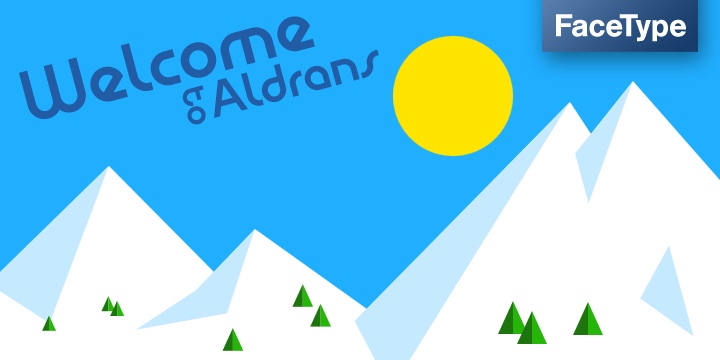
Aldrans Font
This versatile typeface is perfect for branding projects, logo design, poster creation, magazine headlines, book covers, packaging design, social media graphics, and web design elements.
What makes this font exciting is its modern geometric structure combined with elegant curves that create a perfect balance between professionalism and creativity. The clean lines and sophisticated letterforms make it stand out in any design project, while its excellent readability ensures your message gets across effectively.
The Aldrans Font family includes multiple weights ranging from light to bold, along with italic variations, giving designers complete flexibility for hierarchical typography and diverse design applications.
Aldrans Font Free Download offers designers an exceptional opportunity to enhance their creative projects with this contemporary typeface. Whether you're working on corporate identity, editorial design, or digital media, this font delivers the perfect combination of style and functionality. The carefully crafted characters maintain their clarity at both large display sizes and smaller text applications, making it ideal for comprehensive design systems.
The distinctive personality of Aldrans Font shines through its unique character details and refined spacing. Each letter has been meticulously designed to work harmoniously with others, creating smooth text flow and exceptional visual appeal. This attention to detail makes it particularly suitable for luxury brands, tech companies, fashion labels, and creative agencies looking to establish a modern, professional image.
Professional designers and creative enthusiasts alike will appreciate the font's versatility across various media platforms. From print advertisements to website headers, from mobile app interfaces to outdoor signage, Aldrans Font maintains its visual impact and legibility. The font's contemporary aesthetic aligns perfectly with current design trends while possessing timeless qualities that ensure longevity in your design portfolio.